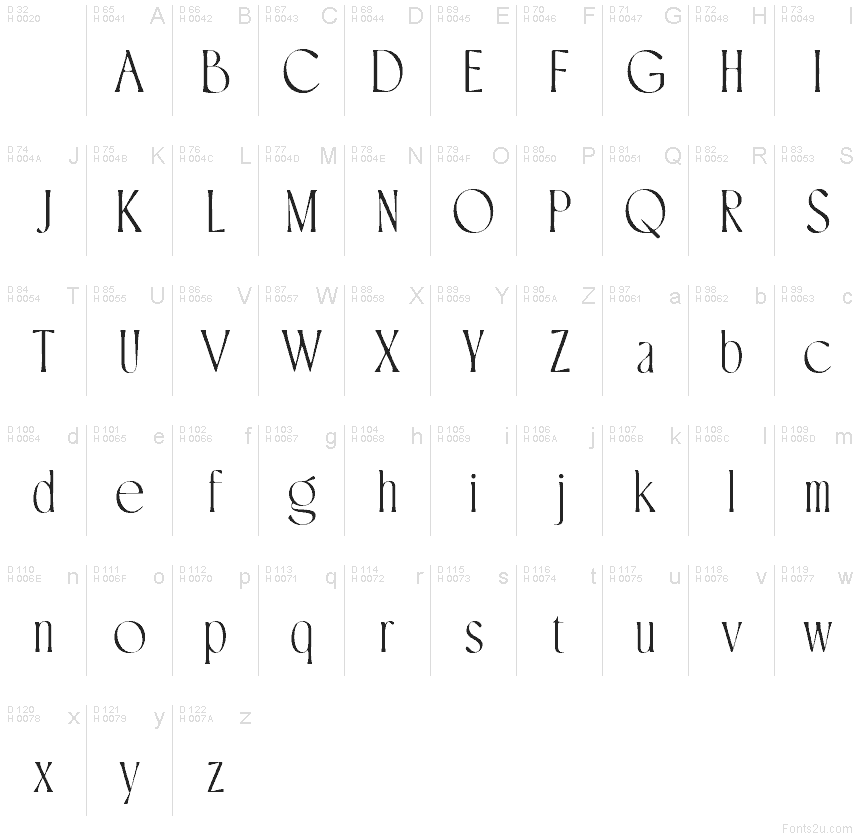
CSCenturyDrawn-Regular Demo
CS Century Drawn font by Craft Supply Co. is an elegant, classic, and sophisticated serif font. Condensed and minimalistic, with high legibility and refined details.
Use this free serif font to create intriguing book covers, product packaging designs (perfume or electronics), restaurant menu items, clothing brand labels, branding names for fashion boutiques, magazine covers or inside articles titles & more.
CS Century Drawn Demo